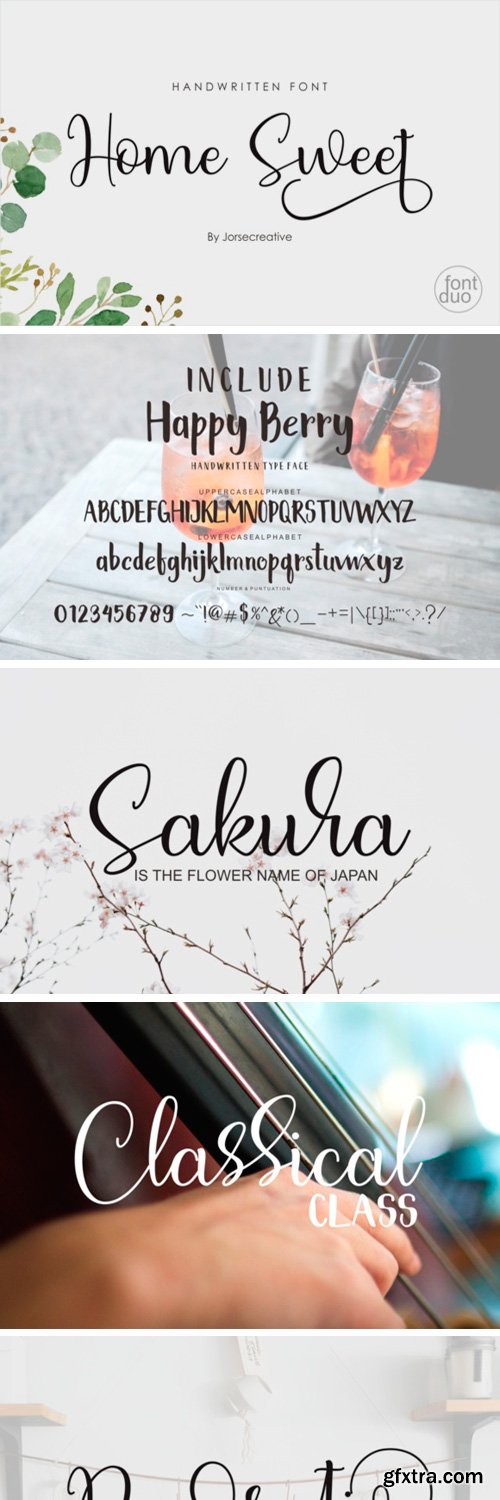
I am proud to introduce the "Home Sweet" Font that is made in such a way as to produce a font that is like in writing with your own hands. very useful to beautify your desai like Greeting Card, Name in a room, Brand, for property name in brochure, t-shirts and so forth.